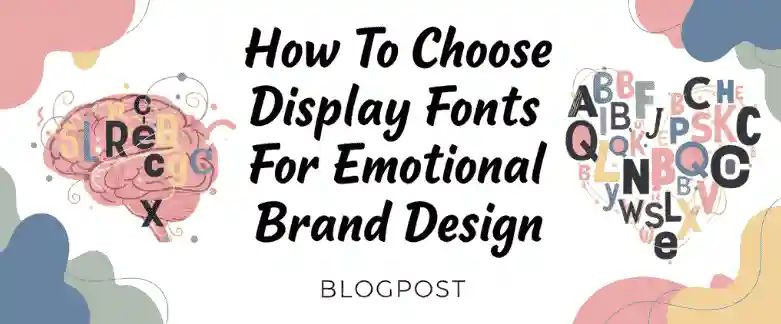
How To Choose Display Fonts For Emotional Brand Design
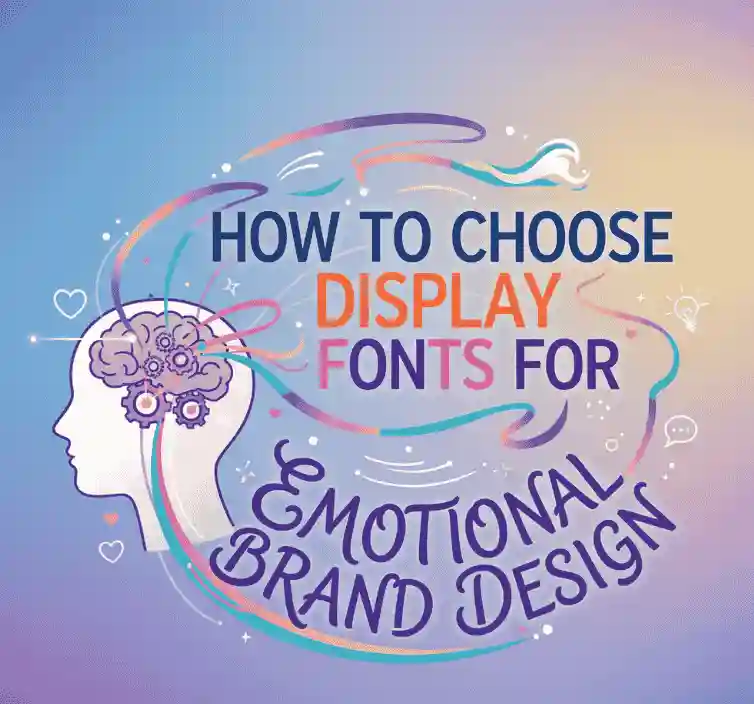
1. Introduction: Why Display Fonts Matter in Emotional Branding
When people visit a brand’s website, browse its packaging, or see its advertising, typography is far more than decoration — it is an emotional signal. The display font is usually the first element that catches the eye. It sets the tone, conveys mood, and shapes first impressions. A carefully chosen display font can make your brand instantly memorable; a careless choice can dilute your message.
This article will walk you through the psychology of typography, practical criteria for evaluating display fonts, and real examples from NoahType that illustrate how to select fonts aligned with your brand’s emotional core.
2. Understanding Font Psychology & Display Fonts
Font psychology explores how typefaces influence human perception, mood, and behavior. Designers use typography as a visual voice to communicate emotions such as trust, excitement, elegance, or playfulness.
- Serif fonts often signal tradition, authority, and professionalism.
- Sans-serif fonts suggest modernity, clarity, and efficiency.
- Script or decorative fonts convey creativity, elegance, or friendliness.
Display fonts are specialized typefaces designed for maximum visual impact in large sizes: headlines, logos, posters, banners, packaging, and advertisements. Unlike body text fonts, they are not primarily about long-form readability but about emotional expression.
3. Key Criteria When Choosing a Display Font for Branding
3.1. Emotional Tone & Brand Personality
Define your brand’s personality first. Is it energetic, elegant, serious, quirky, approachable, or luxurious? Then, choose a display font whose visual voice matches:
- Rounded playful fonts → friendly, cheerful, approachable.
- Elegant serif or script fonts → sophisticated, timeless, premium.
- Bold blocky sans fonts → strong, modern, assertive.
- Decorative vintage fonts → nostalgic, crafted, unique.
3.2. Readability & Legibility in Display Use
A display font may be decorative, but it still must be legible. Test fonts at different sizes and contexts. Avoid fonts with overly complex flourishes that collapse at smaller scales or on digital screens.
3.3. Uniqueness & Distinctive Character
A good display font helps you stand out. Look for original letterforms, interesting ligatures, or distinctive weights. Uniqueness adds memorability, but balance it with usability.
3.4. Versatility Across Media & Sizes
Your display font will appear on websites, social media, packaging, and print. Select fonts that scale gracefully, support multiple weights, and work in both color and monochrome contexts.
3.5. Pairing with Secondary Typefaces
Rarely will a display font stand alone. Pair it with clean body fonts to balance its decorative qualities. For instance, a bold expressive header font works well with a neutral sans-serif for body copy.
4. Step-by-Step Process: How to Choose the Right Display Font
- Define brand emotions → Write down three adjectives (e.g., “bold, elegant, friendly”).
- Collect visual references → Build mood boards with typography you admire.
- Select font candidates → Narrow down 5–10 fonts that align with the mood.
- Test in real contexts → Apply each font in mockups (logo, packaging, website header).
- Evaluate criteria → Check for tone, legibility, uniqueness, and pairing compatibility.
- Refine & customize → Adjust spacing, ligatures, or alternate characters.
- Get user feedback → Test with your target audience.
- Finalize usage rules → Document how and where to use the display font.
5. Examples from NoahType: Applying Theory to Real Fonts
Here are some NoahType display fonts that demonstrate different emotional tones:
- It’s Ok Playful Display Font — Rounded and friendly, perfect for playful branding, kids’ products, or creative cafés.
- Pink Scooter Display Font — Modern, stylish, and energetic, ideal for lifestyle and fashion branding.
- RageSoul Serif Display Font — Bold yet elegant, suitable for luxury, editorial, and strong professional brands.
- Inspace Sans Serif Font — Futuristic and minimalistic, designed for tech companies and innovative startups.
- Proudest Boast Serif Display Font — A refined serif display font that exudes sophistication and authority.
Choosing the right display font is about aligning psychology, brand personality, and practical use. By following a structured process and avoiding common pitfalls, you can select a typeface that resonates emotionally with your audience and strengthens your brand identity.